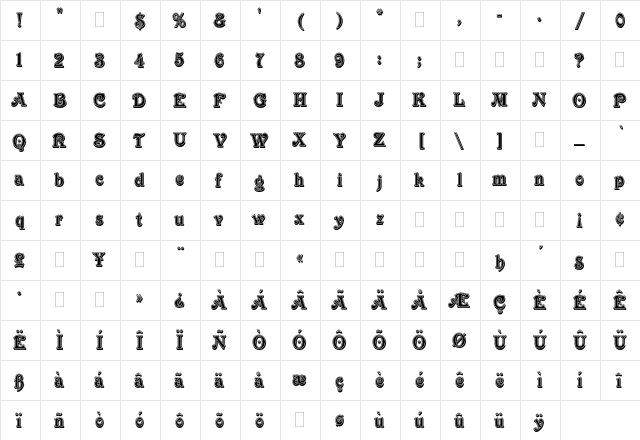
Victorian Inline Shaded Plain
Design Context for Victorian Inline Shaded Typeface
Victorian Inline Shaded is built around its visual character rather than neutral utility — its distinctive forms are designed to make an impression at display sizes.
Font Pairing: Pair with a clean neutral sans-serif for body copy to let Victorian Inline Shaded's character lead without overwhelming the composition.
Pro Tip: Treat Victorian Inline Shaded as the centrepiece of your typographic hierarchy. One strong heading set in a decorative face can carry an entire layout.